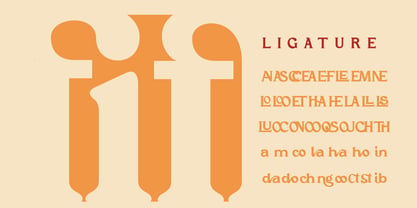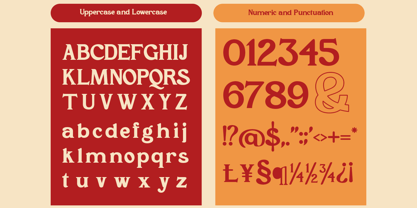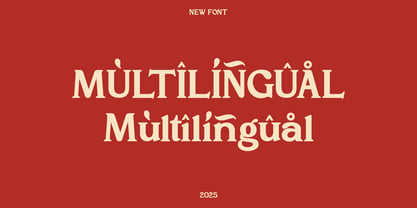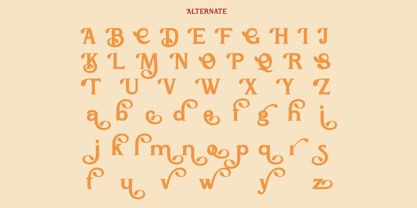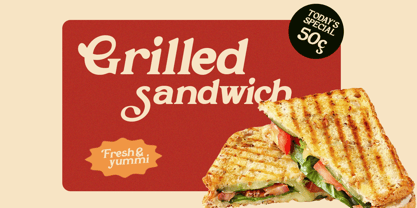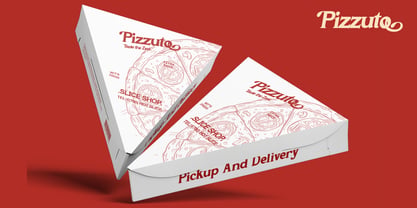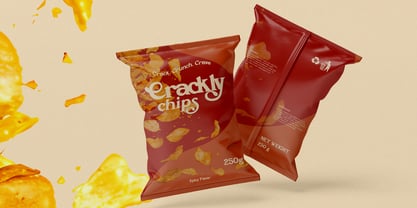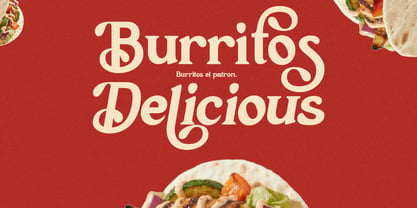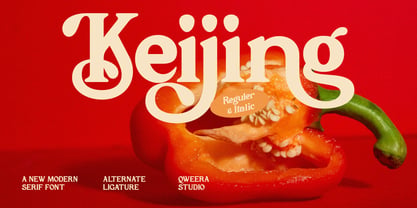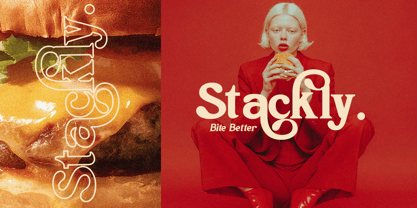
Keijing
The Keijing Font Family was designed by Idhham Cholid Rikzano Yahya and published by Qweera Studio. Keijing contains 2 styles and family package options. More about this family
Keijing is a decorative modern display serif designed with bold curves and expressive styling. It combines playful character with structured serif design to create distinctive typography for branding and editorial use. With alternates, ligatures, and multilingual support, Keijing offers flexibility for creative typography and modern branding systems. Ideal for designers seeking bold decorative serif typography. Features Alternates Ligatures Multilingual support Professional kerning Decorative contrast Specifications Language Support: Western, Central Europe Features: Alternates, Ligatures Recommended For Branding identity, packaging design, logo typography, poster design, creative editorial.